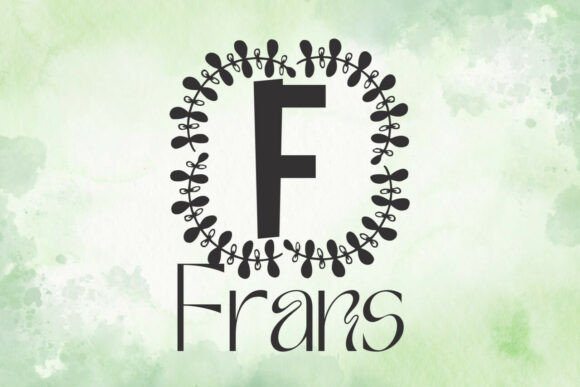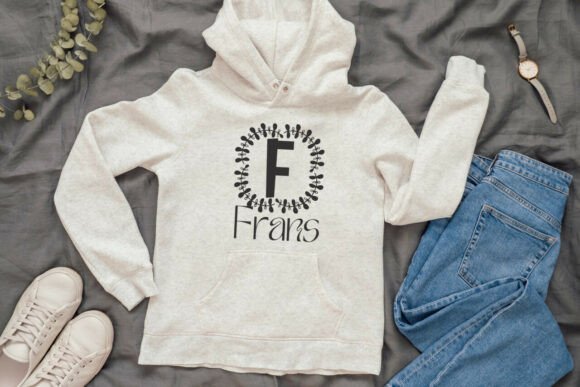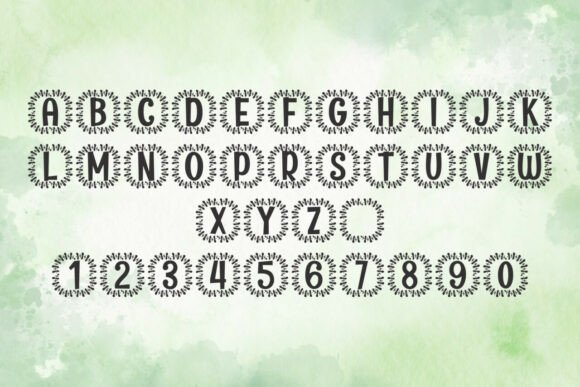
Introduction to Ornalis Monogram Font
Have you ever been in a creative zone, pouring your heart into a project, and suddenly the perfect font pops into your mind? That’s exactly what happens when you discover the Ornalis Monogram Font – a game-changer for designers seeking to elevate their work. This exquisite typeface is more than just a font; it’s a luxury that adds a touch of sophistication to any project.
Whether you’re crafting a bespoke wedding suite, designing a premium packaging label, or creating a sophisticated sign, the Ornalis Monogram Font is the ultimate design resource. Its smooth strokes, generous open counters, and high-quality feel make it the perfect choice for creatives who demand the best. With the Ornalis Monogram Font, you can achieve a polished and refined look without sacrificing legibility or ease of use.
Key Features of Ornalis Monogram Font
- Unique and elegant design, perfect for creative projects requiring a touch of sophistication.
- Supports a wide range of languages, making it a versatile design resource.
- Monogram font suitable for various design applications, including invitations, logos, and branding materials.
Honest Review: Ornalis Monogram Font
I recently stumbled upon the Ornalis Monogram Font, and I must say it’s a fantastic addition to my design arsenal. This free download is perfect for any creative project that requires a touch of elegance and sophistication.
- ✨ High-quality design: The Ornalis Monogram Font boasts intricate details and a beautiful, classic feel that’s sure to elevate any design.
- ✨ Transparent background: The font’s transparent background makes it easy to place on top of any image or background, giving you endless design possibilities.
While the Ornalis Monogram Font is a wonderful resource, there are a few limitations to be aware of. ⚠️ Limited customization options: Unfortunately, the font doesn’t offer much in terms of customization, so you’re stuck with the design as is.
Overall, I’m thoroughly impressed with the Ornalis Monogram Font. Its high-quality design, transparent background, and free download make it an excellent addition to any designer’s toolkit. Just be aware of the limited customization options, and you’ll be all set for your next creative project.
Ornalis Monogram Font Overview
The Ornalis Monogram Font is a high-quality design resource perfect for creative projects. It’s available for free download and can be used with a transparent background, making it versatile for various applications.
The Ornalis Monogram Font is ideal for a variety of creative projects, including:
- Business branding and marketing materials.
- Personalized gifts and party decorations.